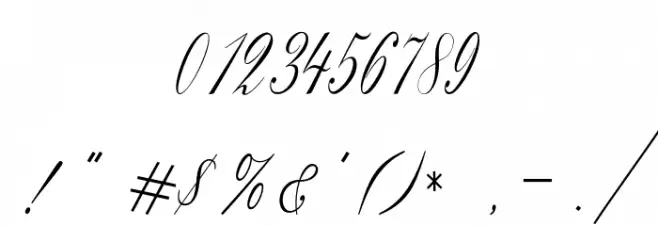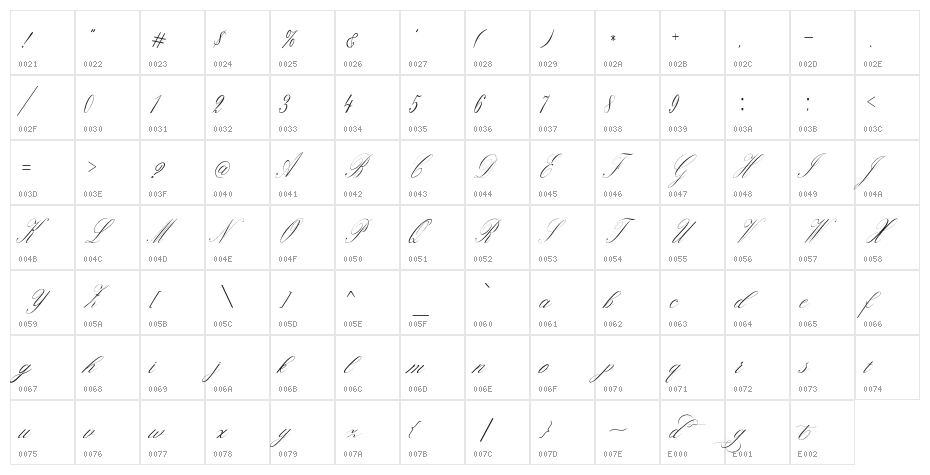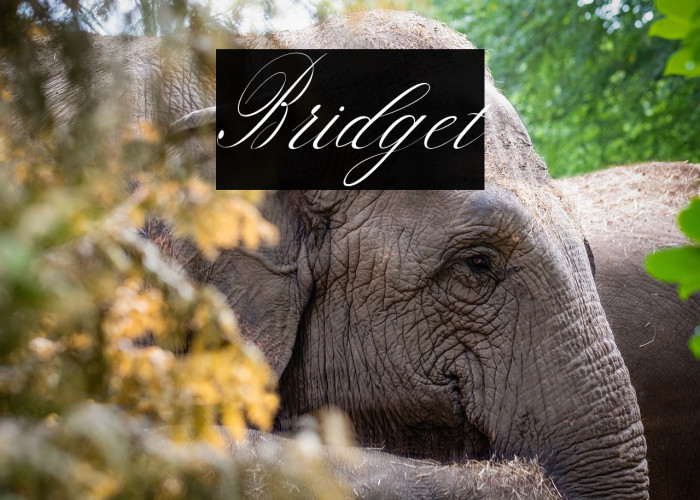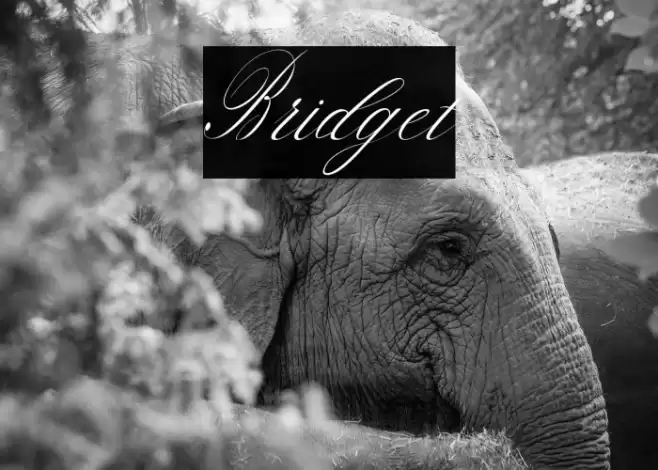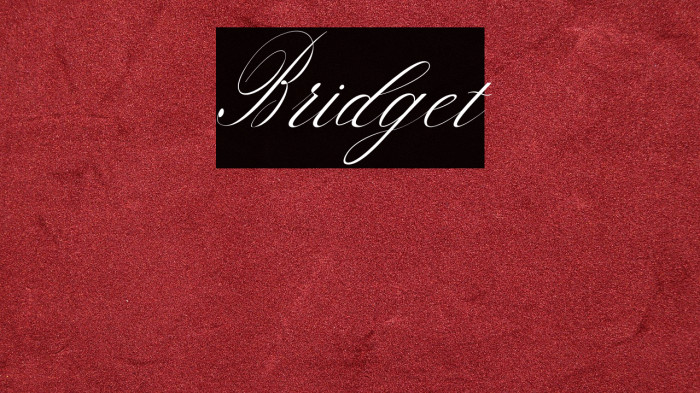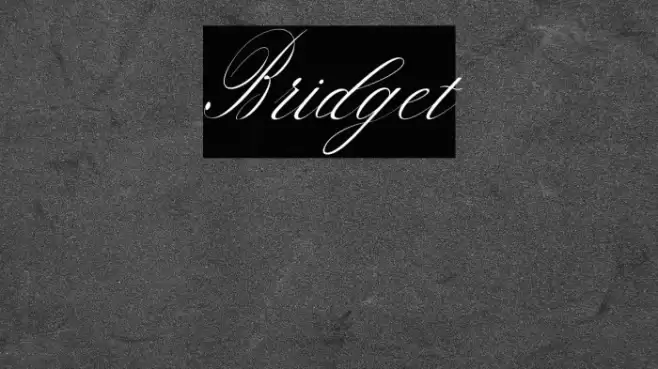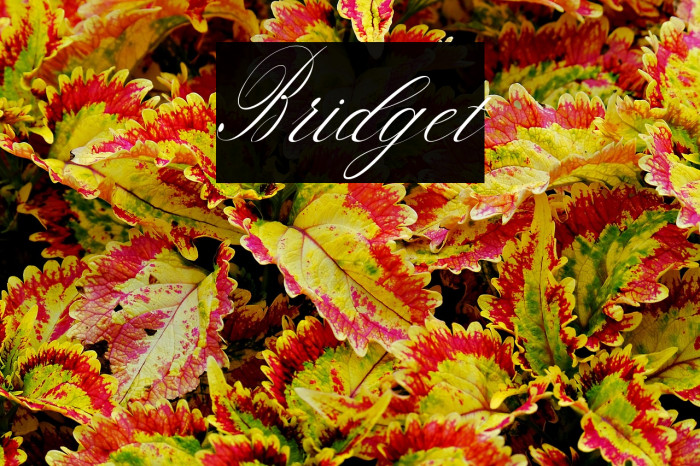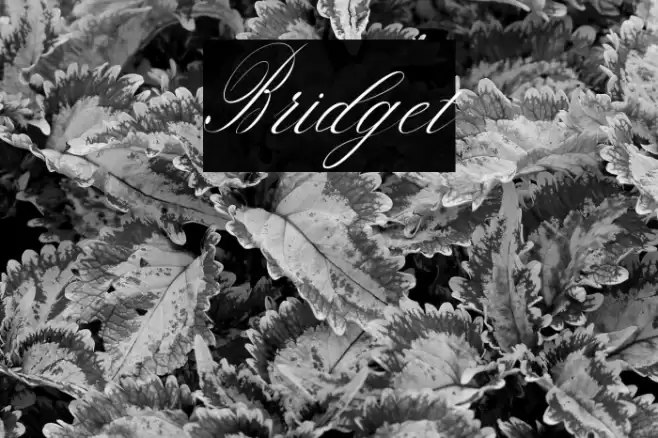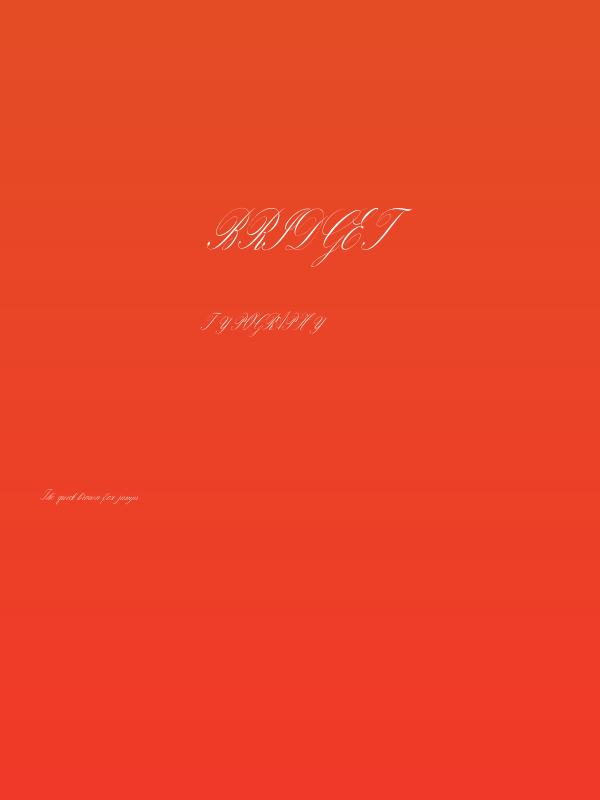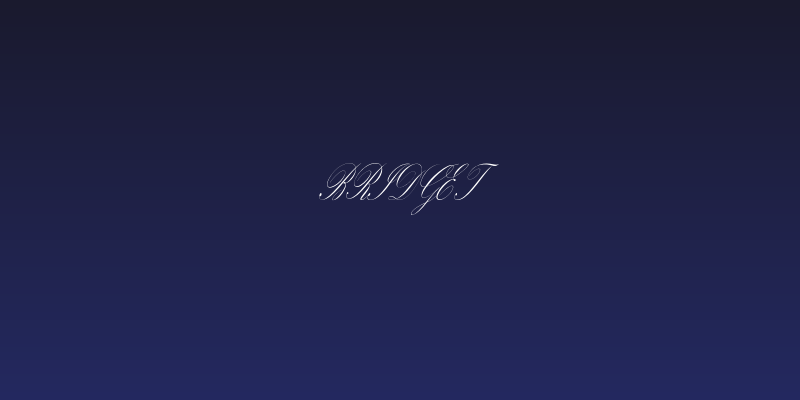
Bridget Font
Bridget Description
This elegant script font features a flowing, cursive style with intricate loops and swashes that give it a sophisticated and graceful appearance. The uppercase letters are particularly ornate, with extended flourishes that add a touch of drama and flair. The lowercase letters maintain a consistent slant and smooth connection, enhancing the overall fluidity of the text. The numerals and special characters are designed to complement the letterforms, maintaining the same elegant and decorative style. This font is perfect for projects that require a touch of elegance and sophistication.
| Use Case | Invitations, Branding, Packaging |
| Proposed Projects | Ideal for wedding invitations, formal event programs, elegant branding, and luxury product packaging. |